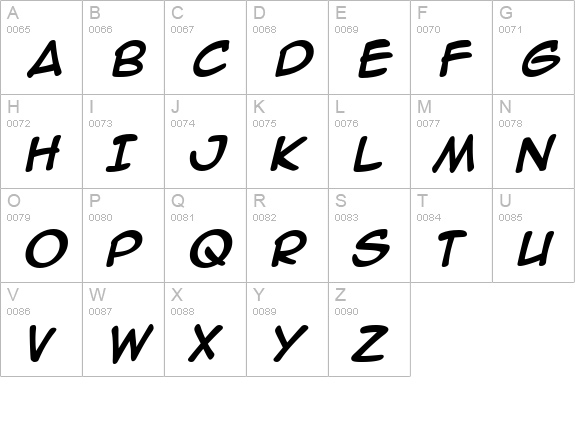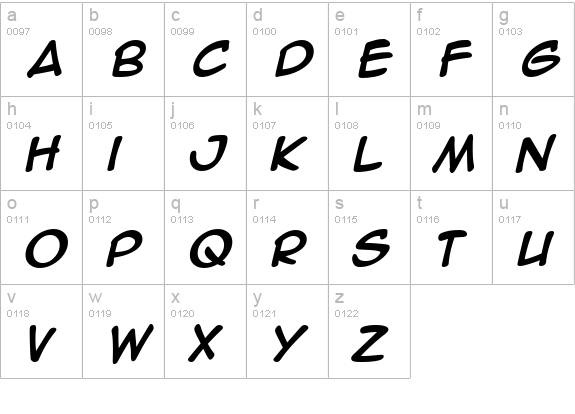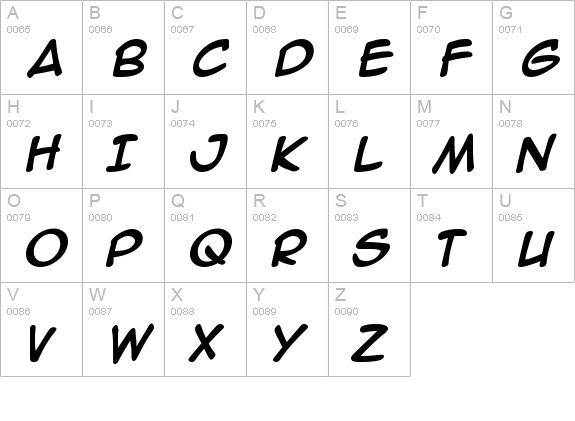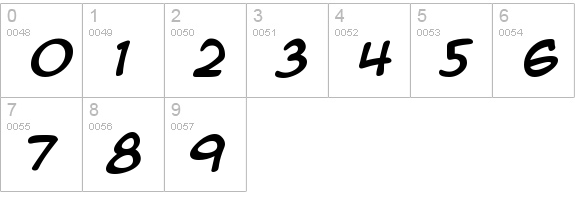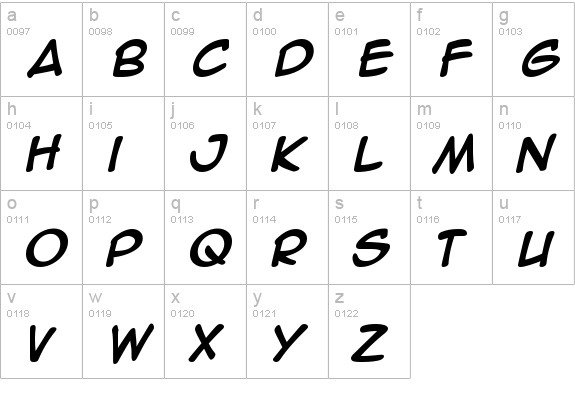
Anime Ace 2.0 BB Bold Font Details
Anime Ace 2.0 BB Bold is a strong, high-contrast variant in the Anime typeface family \xE2\x80\x94 well suited to headlines, attention-grabbing titles, and strong calls-to-action.
Anime Ace 2.0 BB Bold font is a stylish and bold typeface that is perfect for adding a touch of excitement and energy to your designs. With its clean lines and dynamic appearance, this font is sure to make a statement. Whether you're creating posters, banners, or comic book-inspired graphics, Anime Ace 2.0 BB Bold font will help you stand out from the crowd. The best part is that Anime Ace 2.0 BB Bold font is available for free download at FontsMarket.com. This means you can easily access this high-quality font without any cost, making it a great choice for both personal and commercial projects. Don't miss out on the opportunity to enhance your designs with the bold and eye-catching Anime Ace 2.0 BB Bold font. Download it today and take your creations to the next level!